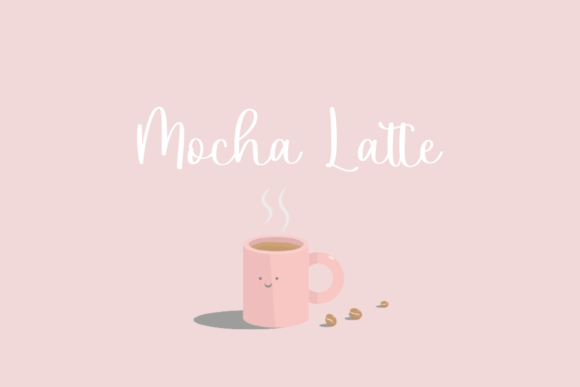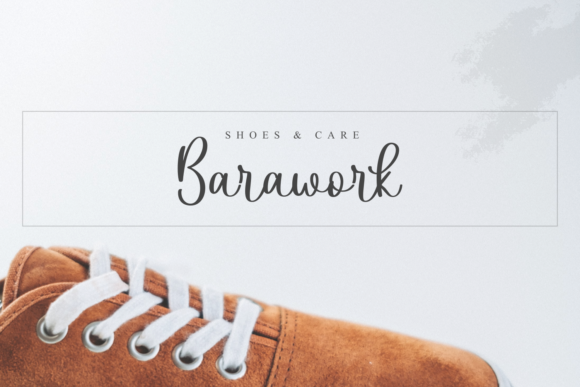
Graphy Font
db-ku.com - Script & Handwritten -- Graphy is a sweet, whimsical and flowing script font. Featuring characters that dance along the baseline, this font will add a luxury spark to any design project that you wish to create!